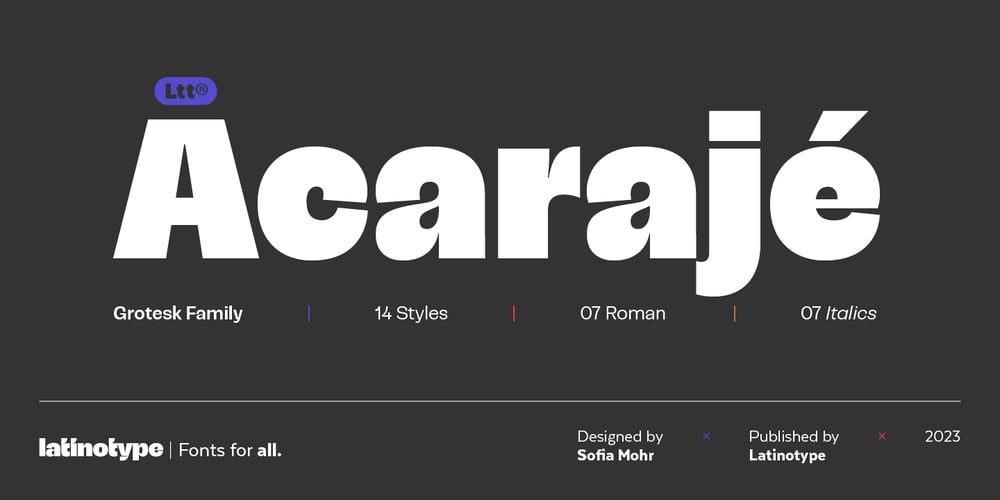
Acaraje
Acaraje font
Acaraje Font Family was designed by Sofia Mohr and published by Latinotype. Acaraje contains 14 styles and family package options. Acarajé is a grotesque font that stands out thanks to its versatility. Its personality blossoms through its particular modulation, which grows with weights; making it a rather jovial typeface that does not abandon the characteristics of more classic grotesques. With two styles available: normal and italic, and a variety of 7 weights that range from “Black” to “Regular”, this font offers incredible flexibility for your designs.